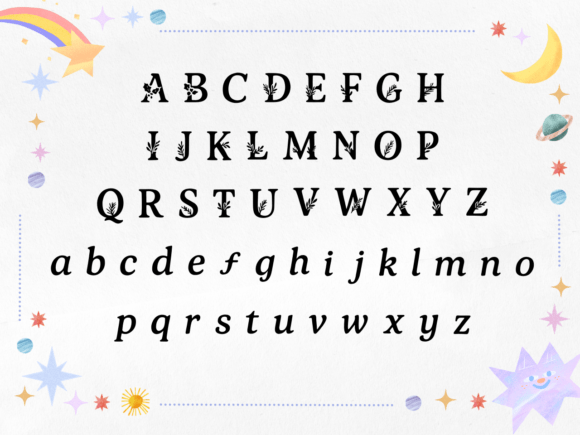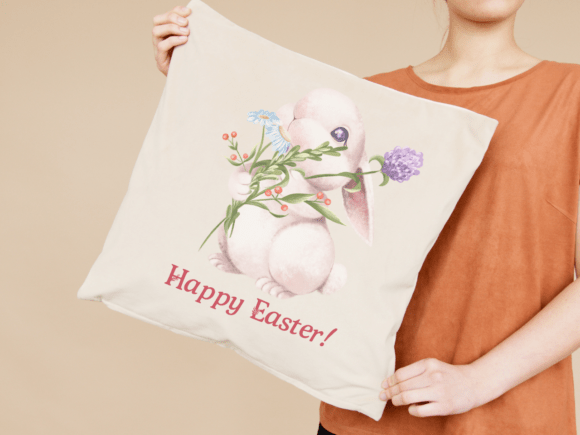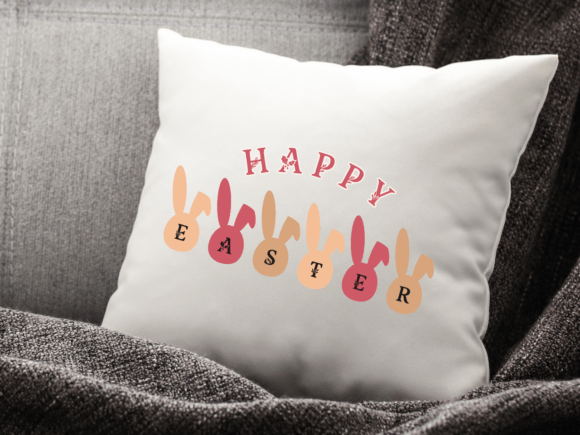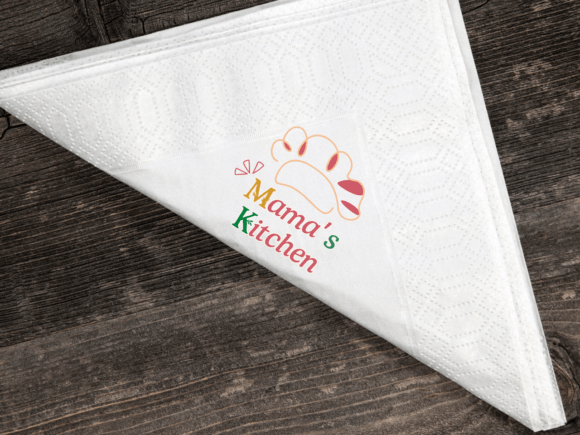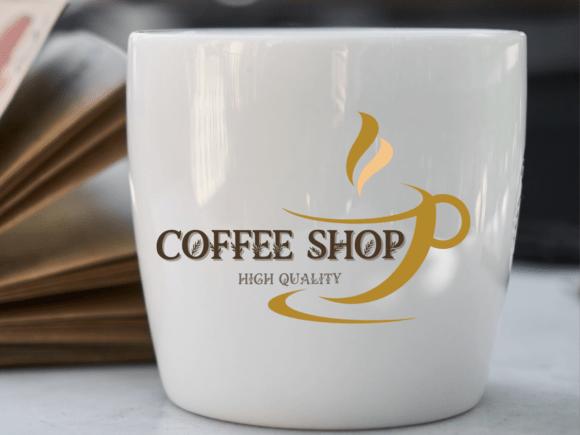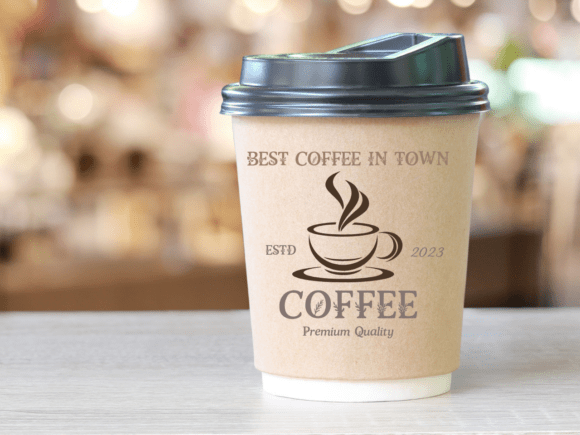
Introduction to Nahan Font
Have you ever stared at a blank page, searching for the perfect font to bring your creative project to life? That’s exactly what happened to me the last time I was working on a design. I wanted to create a beautiful, yet elegant look for a client’s logo, but nothing seemed to fit the bill. That’s when I stumbled upon the Nahan Font – a stunning, organic font that instantly caught my eye.
With its lovely ornaments and high-quality design, the Nahan Font is an absolute game-changer for any designer. Whether you’re working on a project with a transparent background or need a versatile font to elevate your design, this font has got you covered. And the best part? It’s available for free download, making it a valuable addition to any designer’s library.
As a valuable design resource, the Nahan Font offers endless possibilities for creative expression. Its unique style and high-quality design make it a must-have for any designer looking to take their projects to the next level. In this article, we’ll dive deeper into the world of the Nahan Font and explore its many benefits for designers.
Key Features of Nahan Font
- Nahan Font is a high-quality, free design resource ideal for creative projects.
- It features a transparent background, making it easy to integrate into various design elements.
- The font size is scalable, with a recommended minimum size of 12px for optimal readability.
- Nahan Font has a resolution of 300 DPI, ensuring high-quality output in various design applications.
- This font is particularly suitable for modern design projects due to its sleek and modern aesthetic.
Honest Review: Nahan Font
I recently stumbled upon the Nahan Font, and I must say it’s a great addition to my design resource arsenal. As a designer, I’m always on the lookout for high-quality fonts that can elevate my creative projects.
- What works well: ✨ The Nahan Font has a clean and modern design that makes it perfect for digital design projects. It’s also highly legible, making it a great choice for body text.
- What works well: ✨ The font comes in a range of weights, from light to bold, which gives me a lot of flexibility when it comes to choosing the right font for my design project.
However, I do have to mention a few limitations: ⚠️ The font doesn’t have a transparent background option, which can make it a bit tricky to use in some situations. Additionally, the font is only available in a few languages, which may be a limitation for designers working on international projects.
Overall, I’m impressed with the Nahan Font. It’s a high-quality font that’s perfect for designers looking for a clean and modern look. While it may have a few limitations, it’s definitely worth adding to your design resource collection.
Tips for Getting the Most Out of Nahan Font
To get the most out of Nahan Font, use it with a transparent background to create a unique and eye-catching design. Experiment with different font sizes, colors, and styles to create a visually appealing effect. The Nahan Font is a versatile design resource that can be used in a variety of creative projects, from logos to typography-based designs.
Common Use Cases for Nahan Font
The Nahan Font is commonly used in creative projects that require a high-quality, unique font. Some common use cases include: